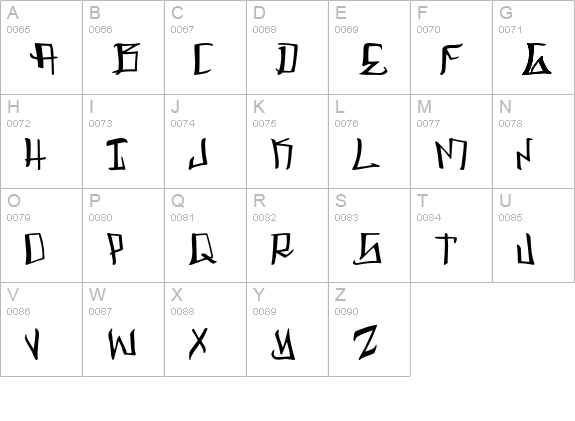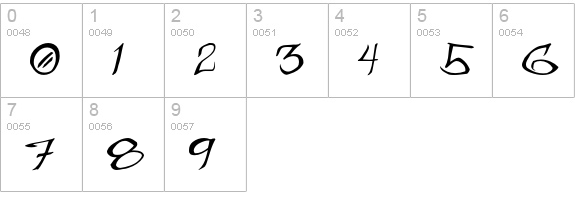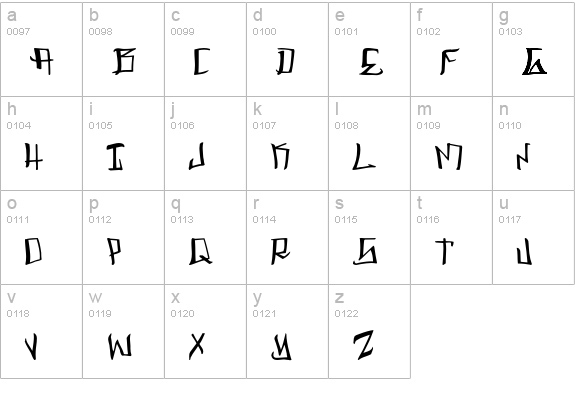
GANGSTA Font Details
Introducing GANGSTA font - a bold and edgy typeface that exudes strength and attitude. This urban-inspired font is perfect for adding a touch of rebelliousness and street style to your designs. With its sharp angles and distinctive letterforms, GANGSTA font commands attention and makes a powerful statement. This font is not only visually striking but also incredibly versatile, making it suitable for a wide range of creative projects. Whether you're designing a poster for a music event, creating a logo for a streetwear brand, or adding a touch of urban flair to your social media graphics, GANGSTA font will elevate your work to the next level. And the best part? GANGSTA font is available for free download at FontsMarket.com. Now, you can add this bold and captivating font to your collection without breaking the bank. Don't miss out on the opportunity to enhance your designs with the raw energy and urban aesthetic of GANGSTA font. Download it today and let your creativity run wild.